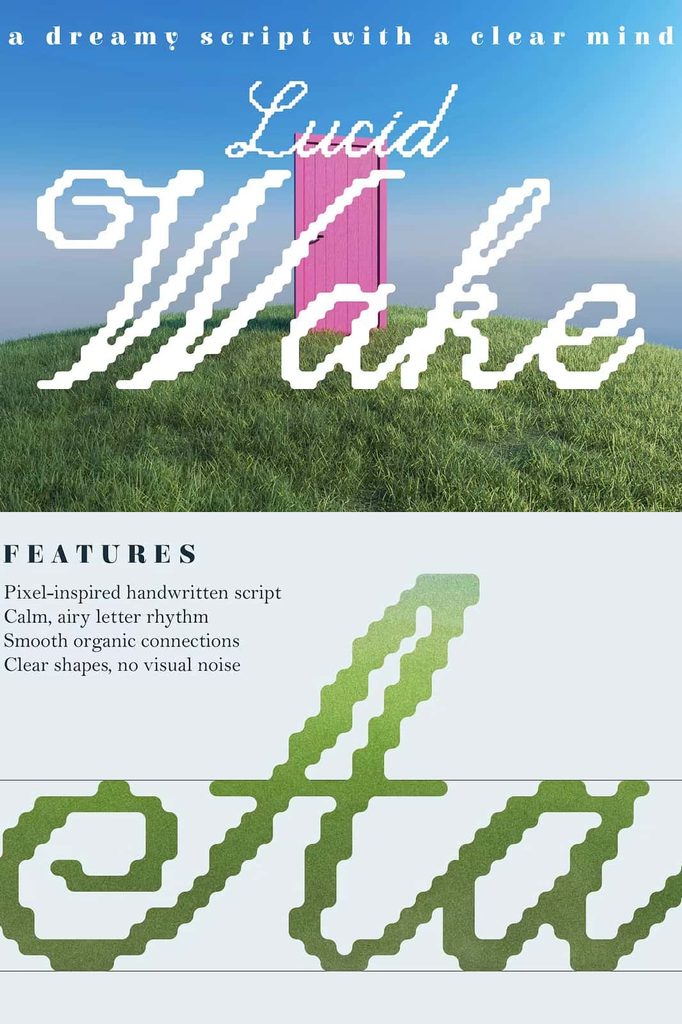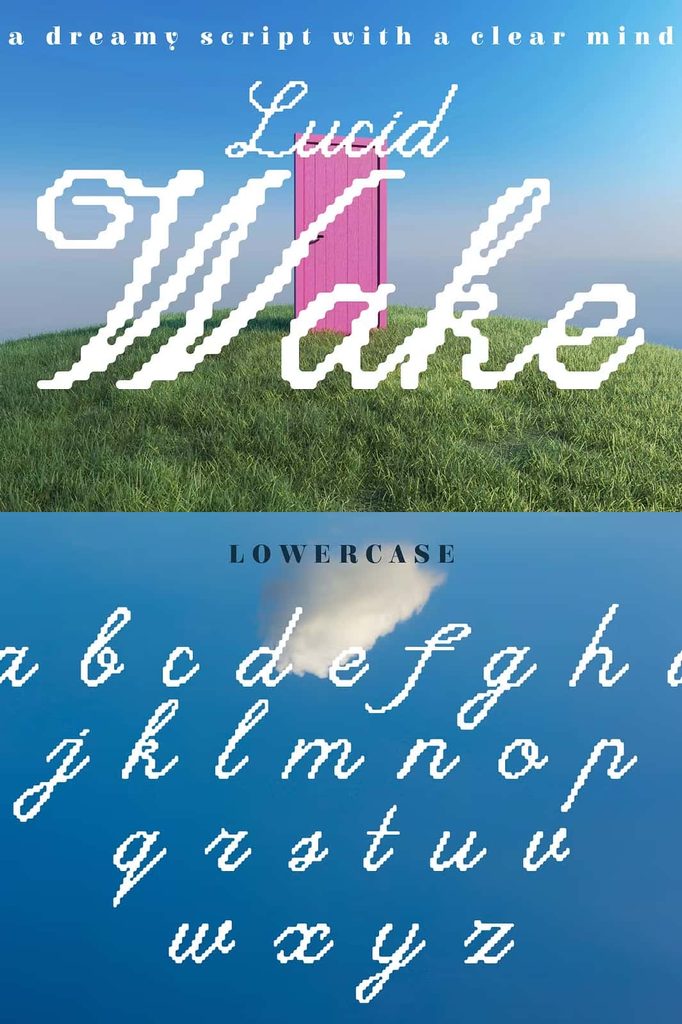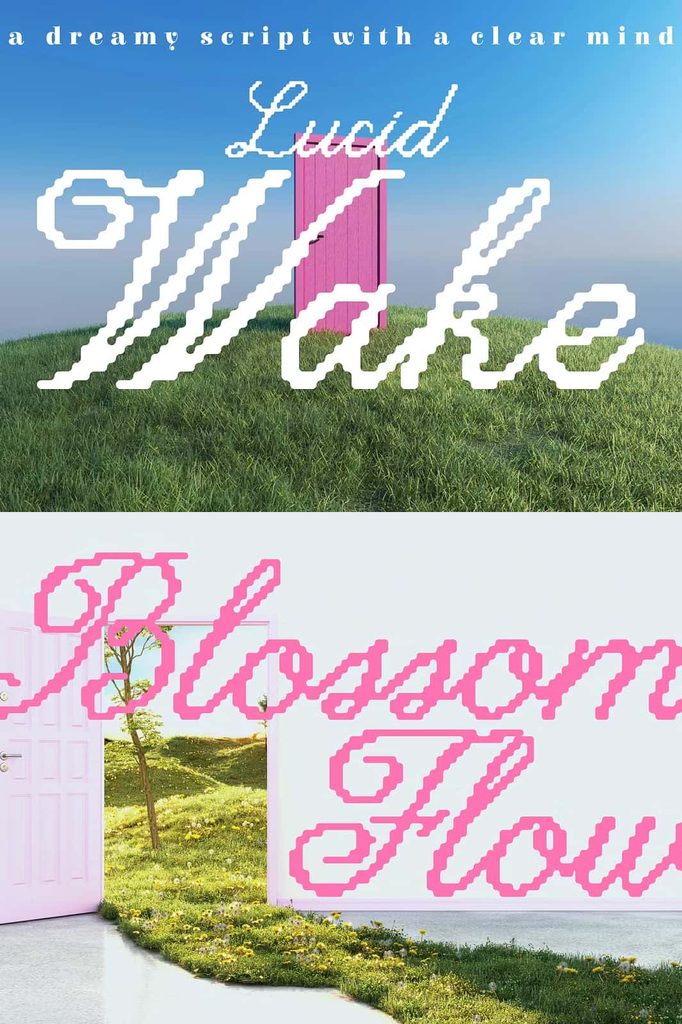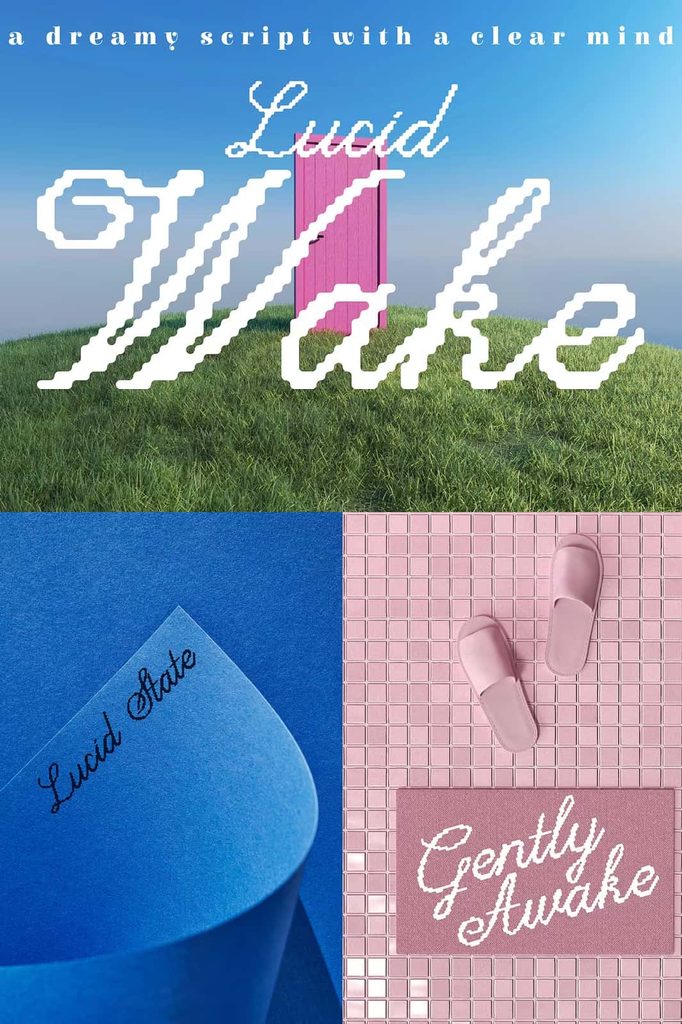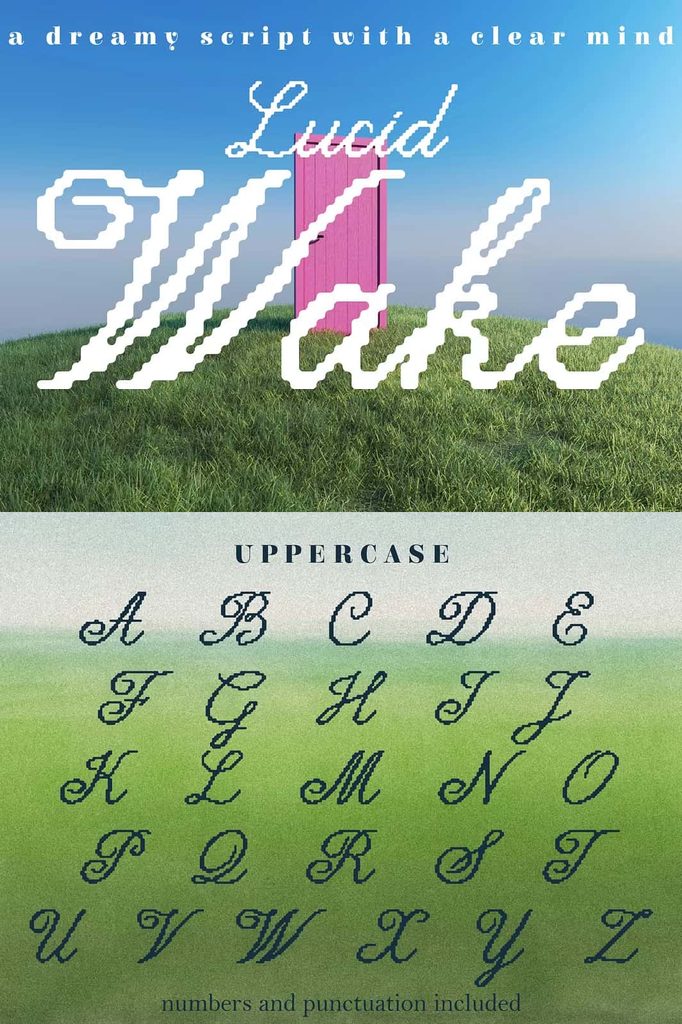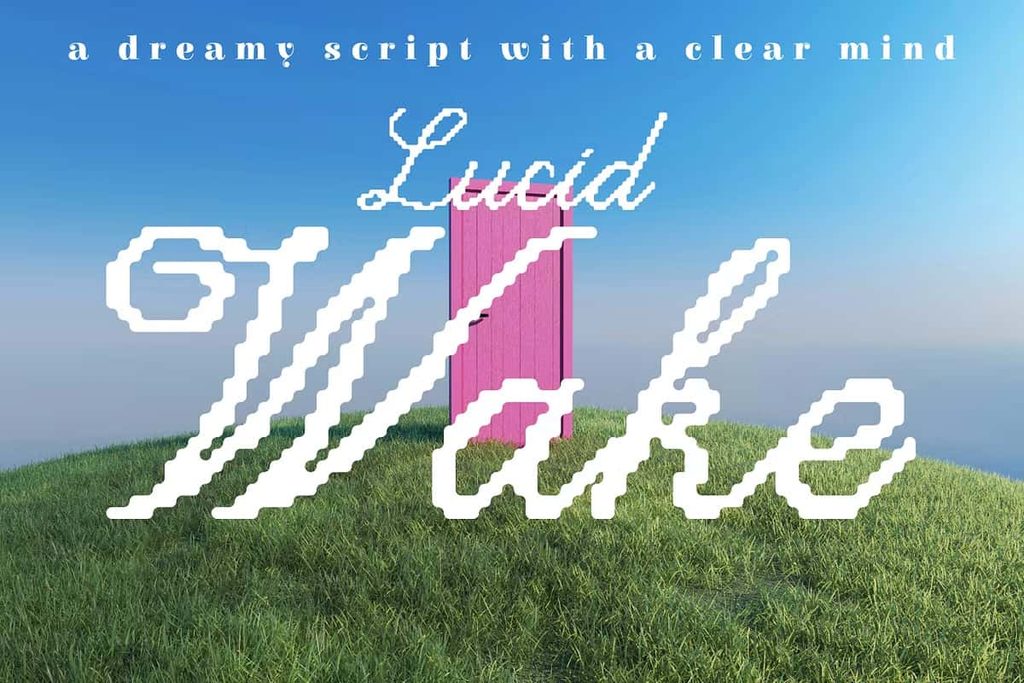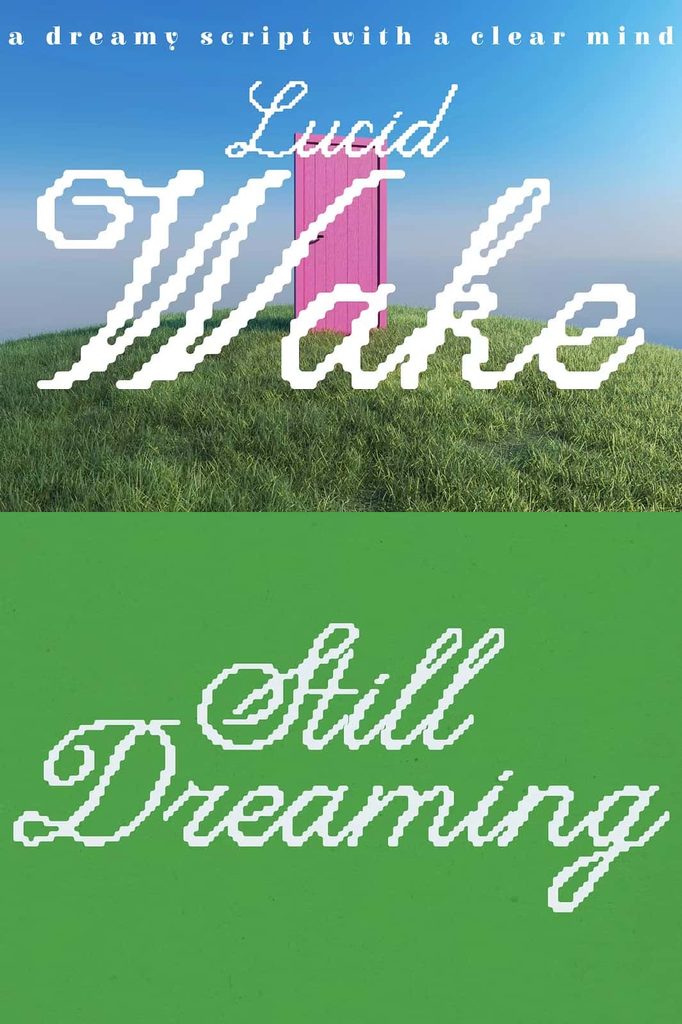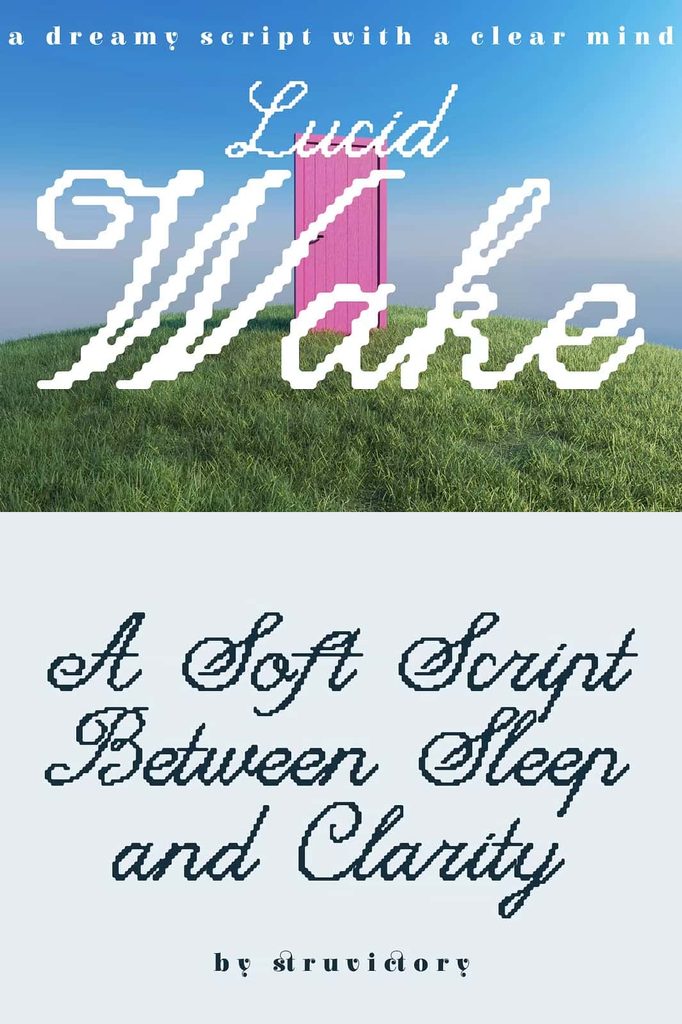
Lucid Wake Font: A Dreamy Pixel-Inspired Handwritten Script
Lucid Wake is a soft, pixel-inspired handwritten script font that brings together dreamy expression and clear, modern typography. It creates a gentle visual rhythm that feels calm, optimistic, and slightly surreal while keeping every letter easy to recognize. The design balances delicate movement with clean shapes, giving your projects an emotional character without sacrificing readability.
Inspired by the feeling of waking from a vivid and memorable dream, Lucid Wake carries a quiet sense of wonder. Its handwritten forms add personality, while its subtle pixel influence introduces a contemporary digital quality. This combination makes the font feel both nostalgic and fresh, allowing designers to build compositions that look expressive without becoming overly complicated.
A Soft and Dreamy Handwritten Style
Lucid Wake creates a distinctive handwritten appearance through its relaxed letterforms and airy rhythm. Instead of relying on heavy decoration, the font uses carefully shaped characters to communicate emotion. Each word can feel personal, thoughtful, and spontaneous, making Lucid Wake an excellent choice when a design needs warmth and individuality.
The soft visual character also gives the font a poetic quality. It can suggest memories, dreams, imagination, creativity, and quiet moments. Designers can use this personality to create artwork that feels inviting and expressive. Whether you place the font in a large headline or use it as a supporting element, Lucid Wake adds a subtle emotional layer to the composition.
Pixel-Inspired Details With Modern Clarity
One of the defining qualities of Lucid Wake is its pixel-inspired character. The design references digital typography without turning the font into a rigid or traditional pixel typeface. Instead, it blends digital influence with handwritten movement, producing a unique visual balance.
This approach allows Lucid Wake to work across both nostalgic and contemporary design styles. You can use it for projects inspired by retro digital aesthetics, creative technology, indie publishing, modern lifestyle branding, or experimental editorial design. Its clean construction helps maintain clarity even when the surrounding artwork becomes more expressive.
Perfect for Creative Branding
Lucid Wake can help brands establish a softer and more memorable identity. Its handwritten personality works particularly well for creative businesses, independent studios, lifestyle products, artists, publishers, and brands that want to communicate imagination and authenticity.
Use Lucid Wake in logos, wordmarks, packaging labels, promotional graphics, and brand campaigns to create a recognizable visual voice. The font can make a simple brand name feel more personal and distinctive. Pair it with a clean sans serif for a modern identity, or combine it with a refined serif to create a more editorial and sophisticated direction.
Bring Posters and Covers to Life
Lucid Wake performs especially well in large display applications. Its expressive handwritten structure can transform a simple phrase into an engaging focal point. Use it for posters, album artwork, book covers, zines, event graphics, and creative campaigns where typography needs to communicate a strong mood.
Large-scale lettering gives the font enough space to show its unique shapes and gentle rhythm. Designers can also experiment with spacing, layering, cropping, and contrasting typefaces to create more dynamic compositions. The result can feel artistic and atmospheric while remaining easy for viewers to understand.
Beautiful for Editorial and Poetic Layouts
Editorial design often depends on typography to establish tone and guide the reader through a visual story. Lucid Wake brings a human touch to editorial compositions, making it suitable for magazine titles, section headings, pull quotes, feature pages, creative journals, and independent publications.
Its dreamy appearance also suits poetic layouts. Designers can use the font for short phrases, memorable statements, personal reflections, and artistic passages. When combined with generous spacing and minimal graphic elements, Lucid Wake can create a peaceful composition that gives the typography room to breathe.
Packaging With Personality
Lucid Wake can give packaging designs a friendly and imaginative character. Use it on product names, labels, stickers, boxes, wrapping materials, or promotional inserts to create a more handcrafted appearance. Its combination of digital influence and handwritten expression can help products stand apart on crowded shelves or online storefronts.
The font works particularly well for products that communicate creativity, individuality, nostalgia, imagination, or relaxed lifestyle experiences. Combine the lettering with simple illustrations, soft textures, or clean supporting typography to build a cohesive package design.
From branding and packaging to posters, covers, editorials, and poetic compositions, Lucid Wake can bring a distinctive atmosphere to your typography. Its unique combination of handwritten warmth and pixel-inspired clarity gives creative projects a memorable voice and helps ordinary words become an important part of the visual experience.